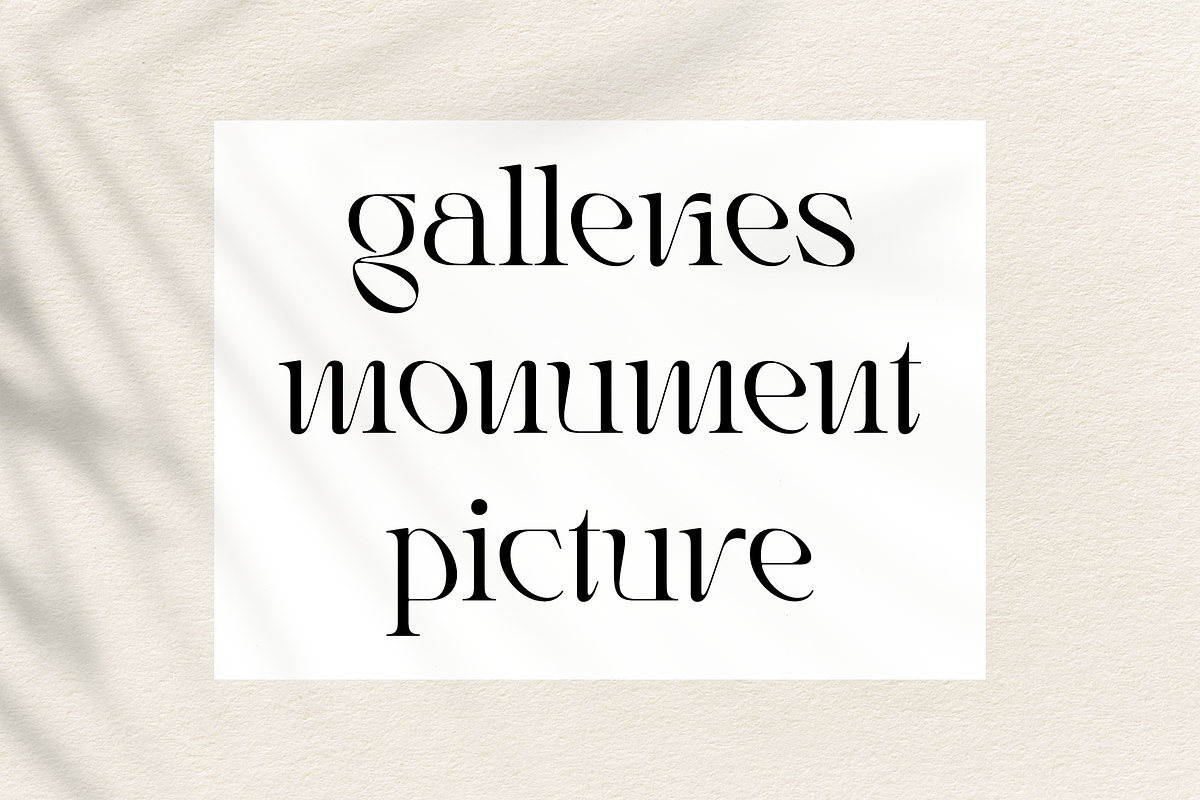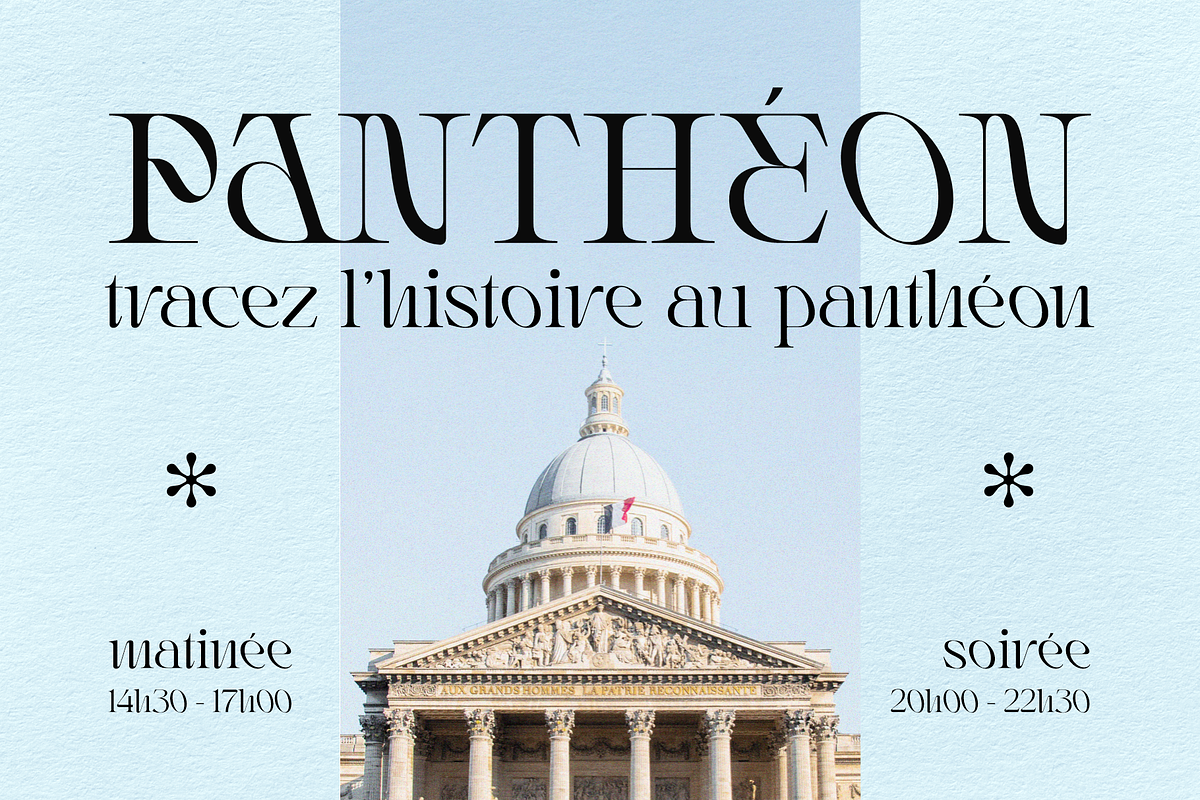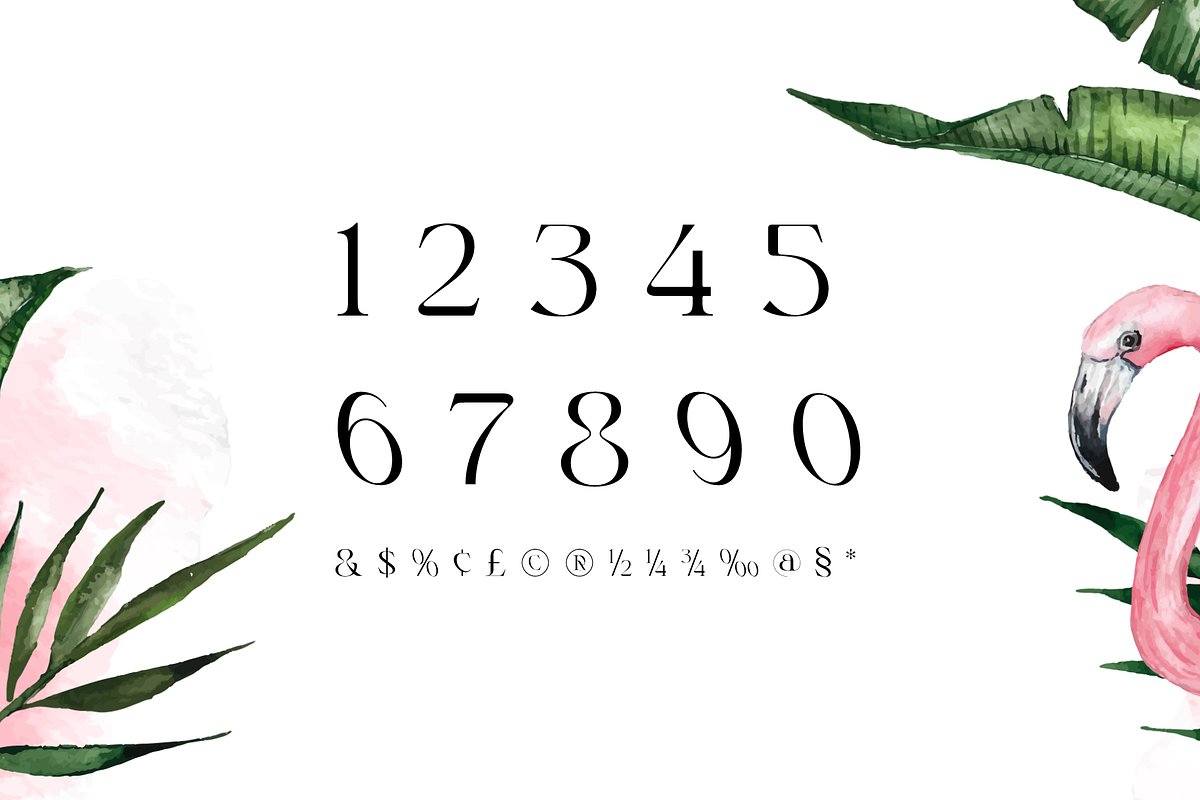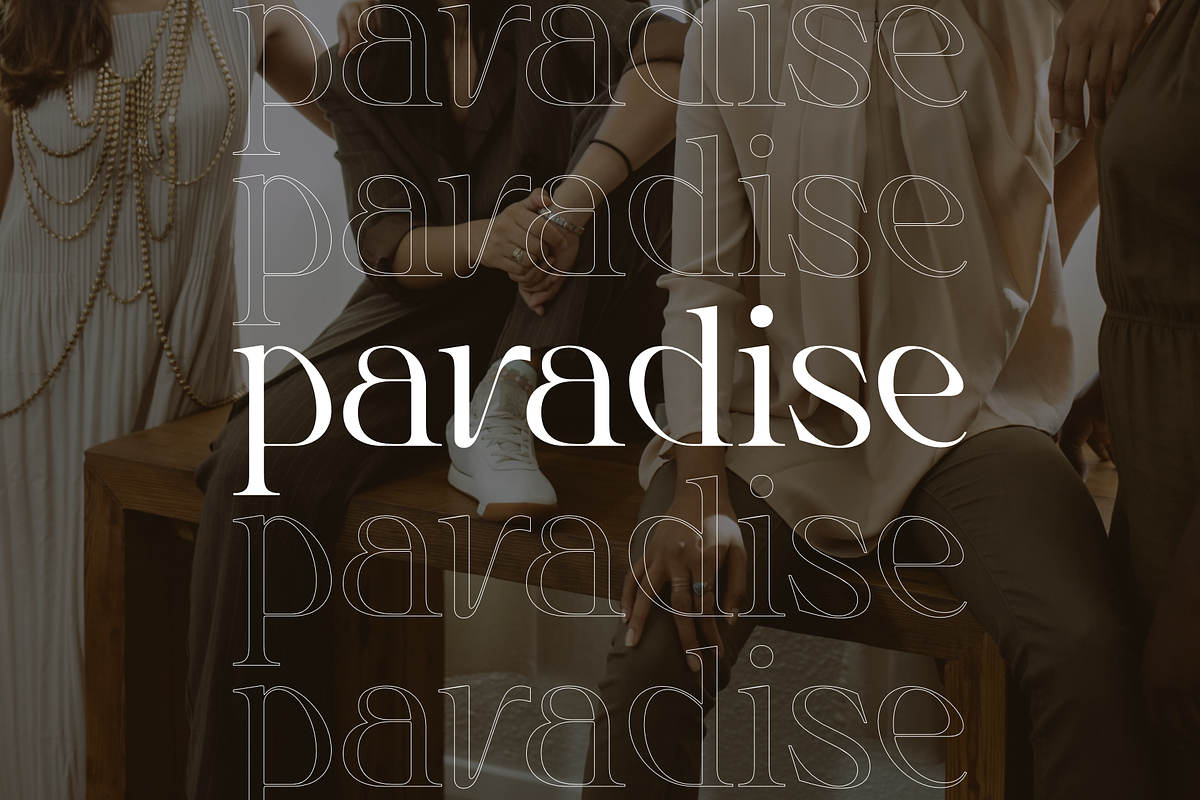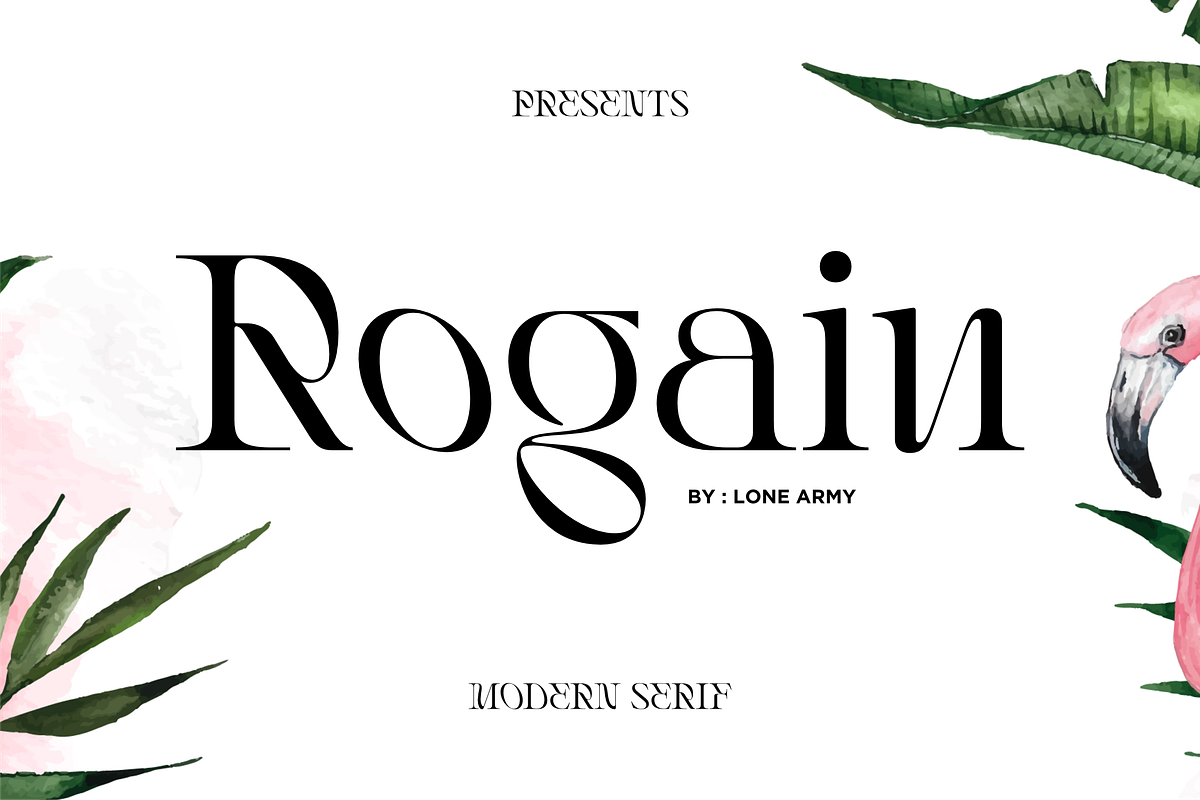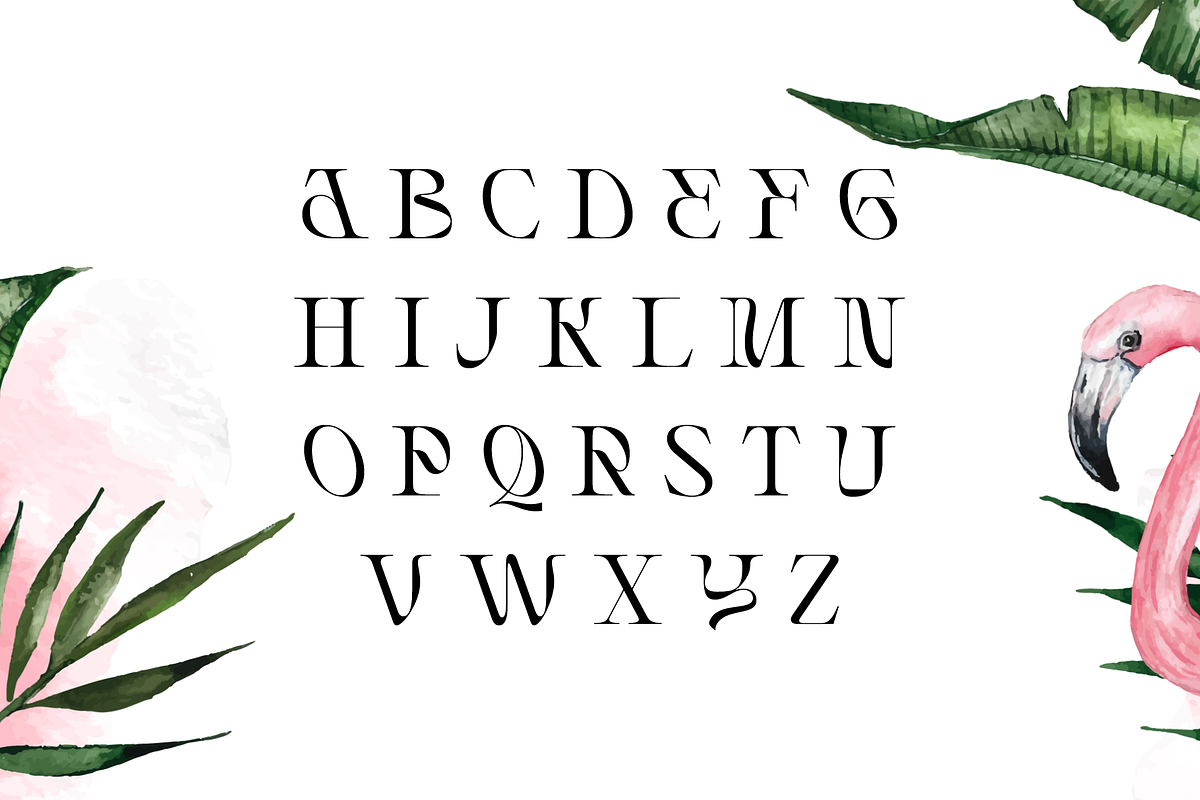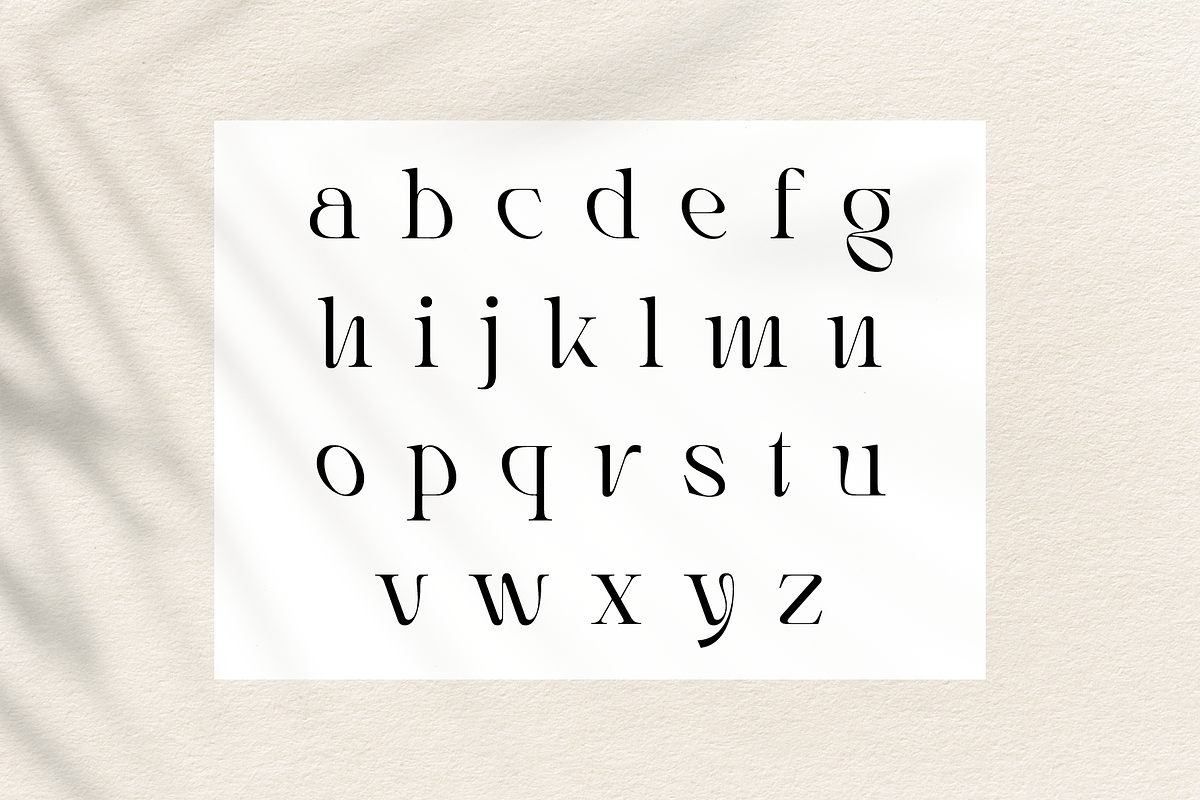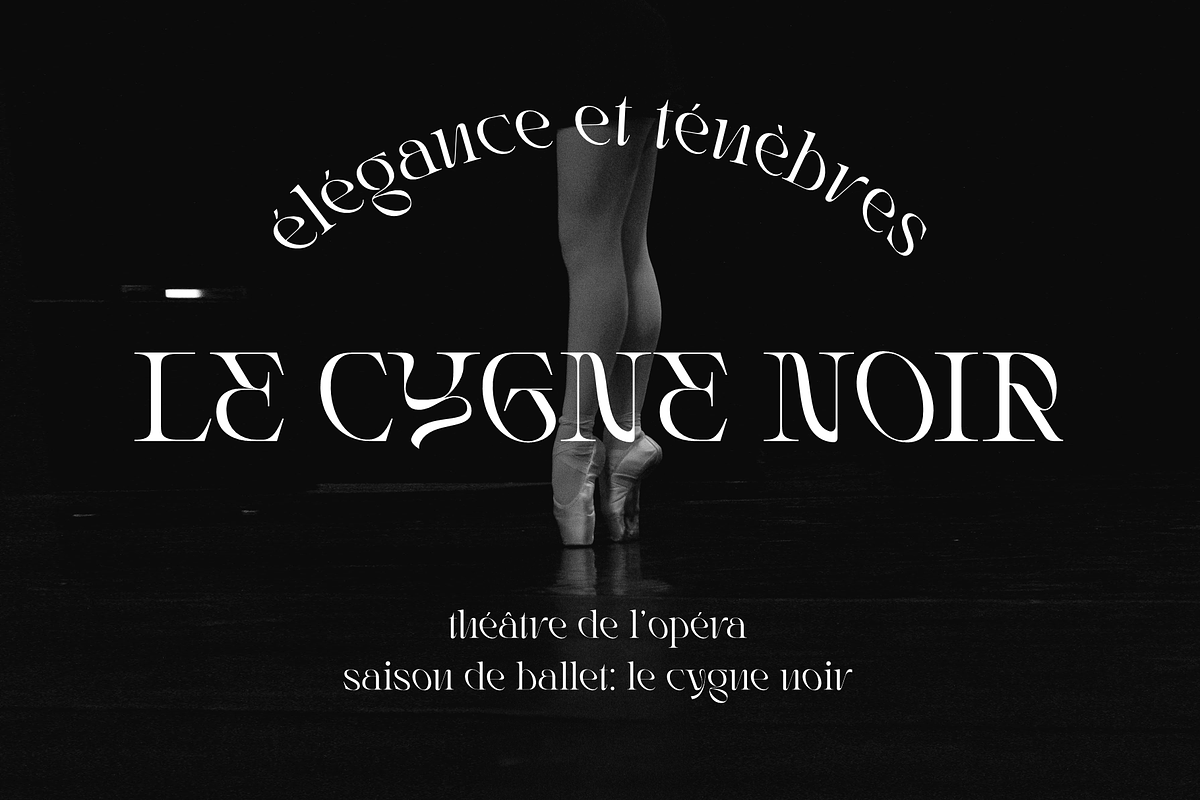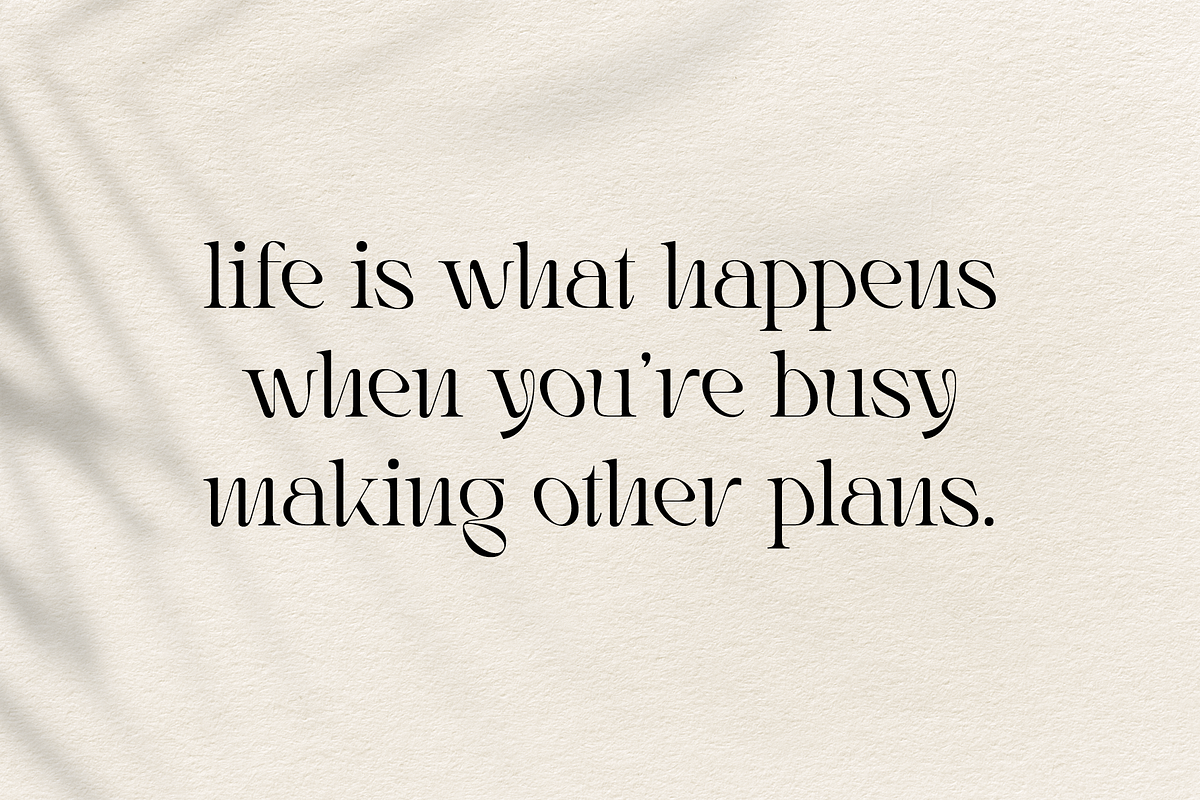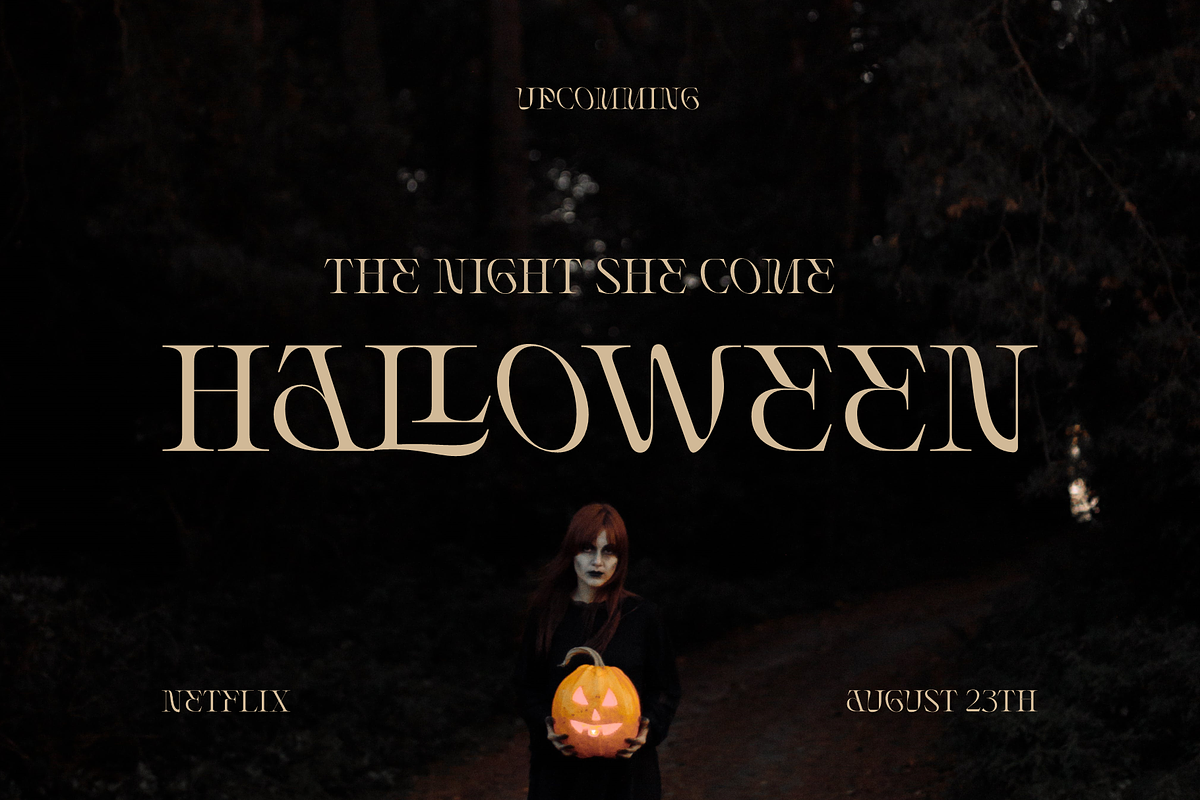
Rogain - Modern Serif
Rogain is a unique font that seamlessly blends modern elegance with tropical charm and a touch of gothic influence. Inspired by lush tropical landscapes, Rogain features sleek serifs and subtle floral motifs. Perfect for a wide range of designs, it captures the essence of sophistication and natural beauty. Experience the fusion of styles with Rogain.